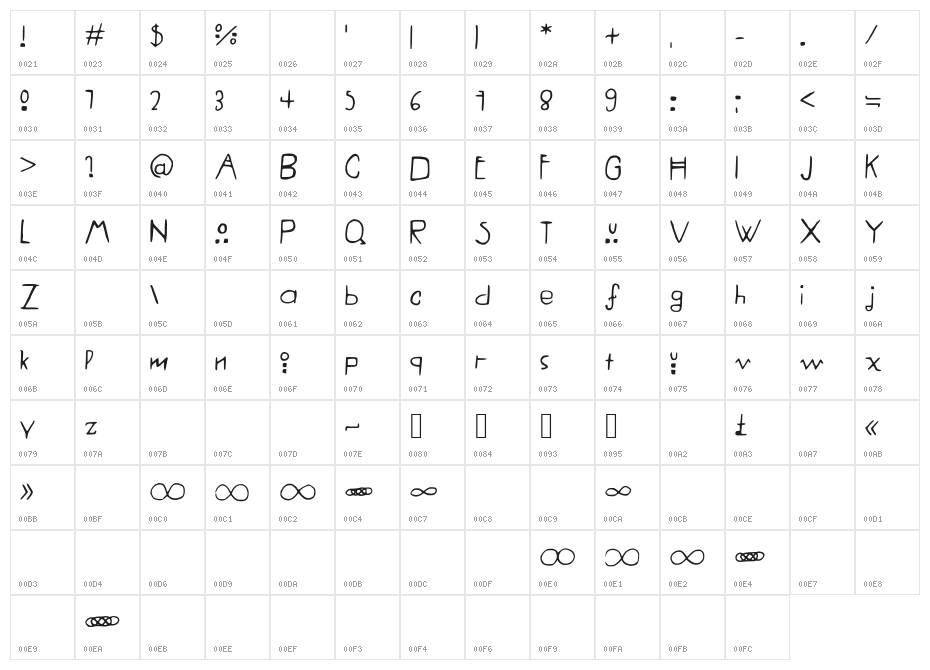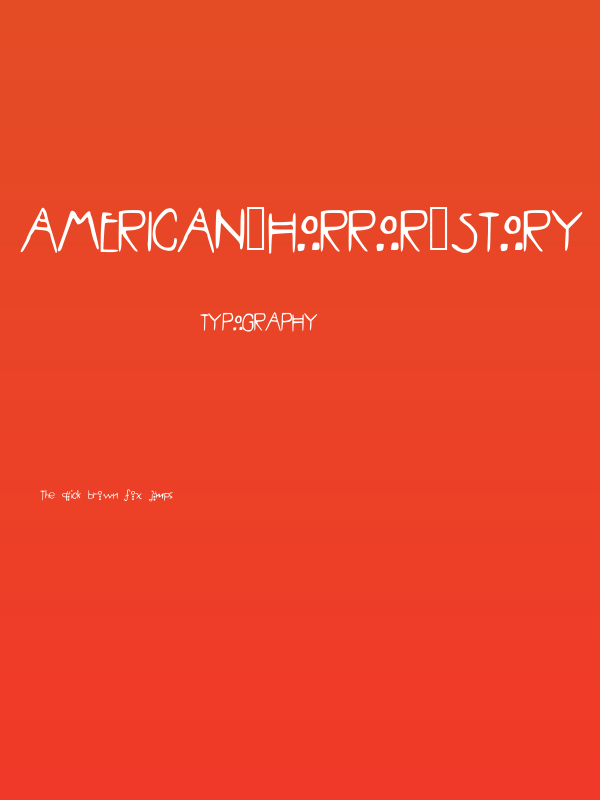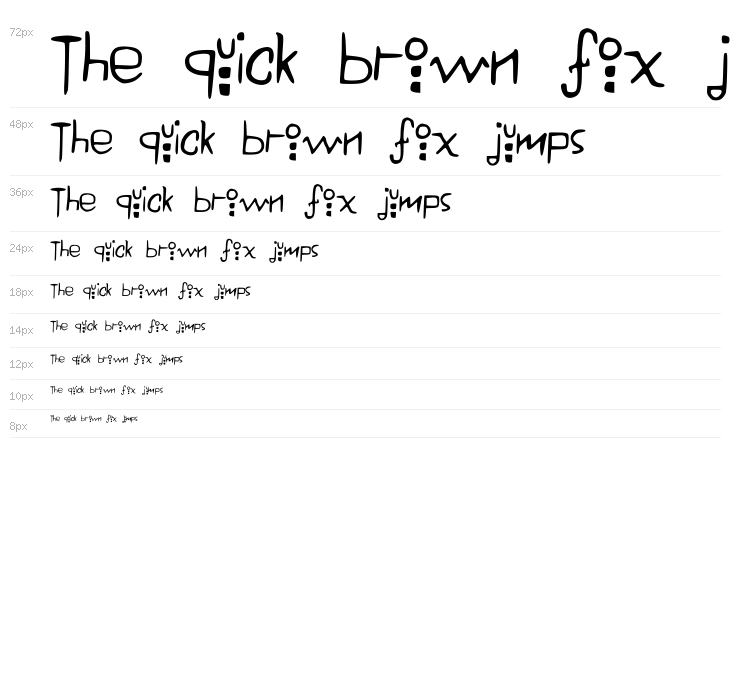
AMERICAN_HORROR_STORY Font
| Progetti proposti | Ideal for horror movie posters, Halloween invitations, spooky event branding, and themed merchandise. |